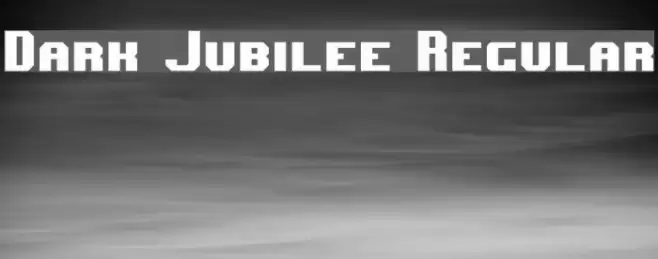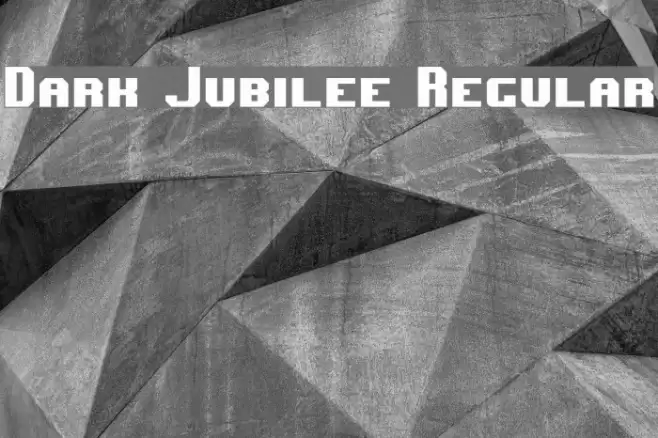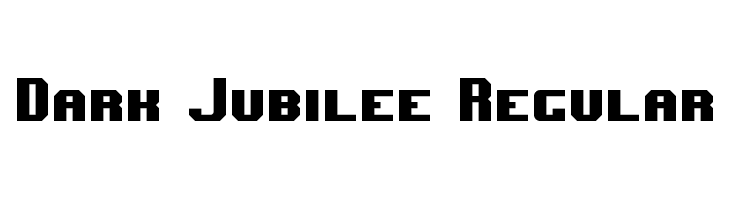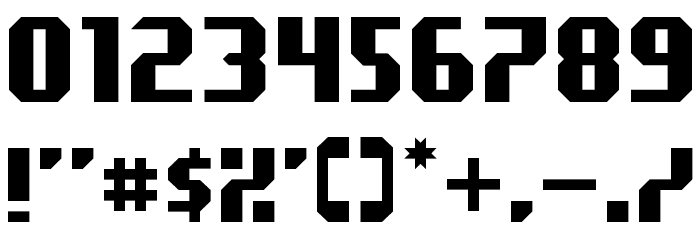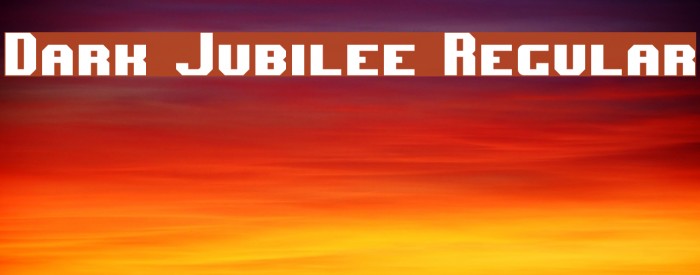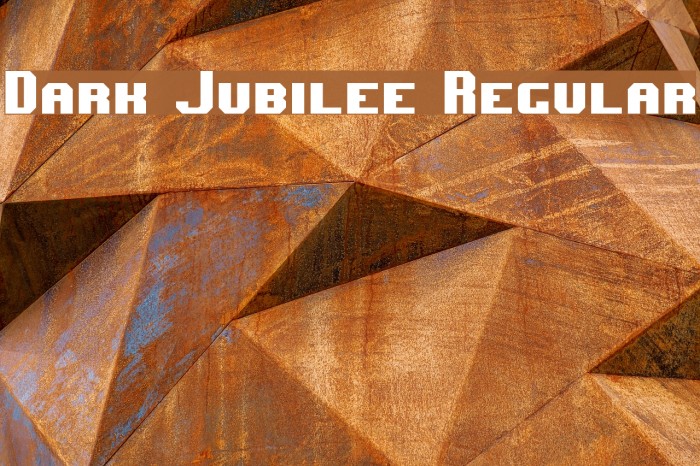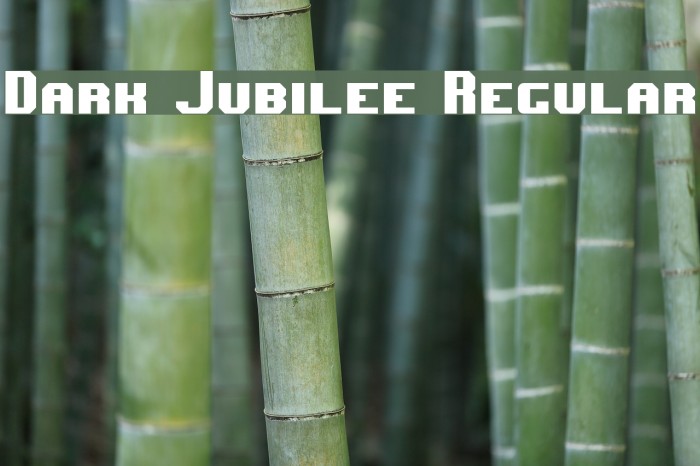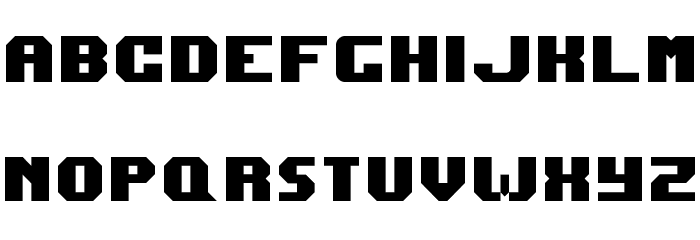
Dark Jubilee Regular Font
Dark Jubilee Regular Description
This font features a bold, geometric design with a strong presence. Each character is crafted with sharp angles and straight lines, giving it a modern and industrial feel. The uppercase and lowercase letters maintain a consistent height, contributing to a uniform appearance. The numbers and special characters are designed with the same boldness, ensuring readability and impact. This font's distinct style makes it suitable for projects that require a strong visual statement.
A bold, geometric font with sharp angles and a modern industrial feel from Uncategorized fonts.
- Proposed Projects: Ideal for branding, posters, headlines, and any design that requires a strong, impactful typeface.